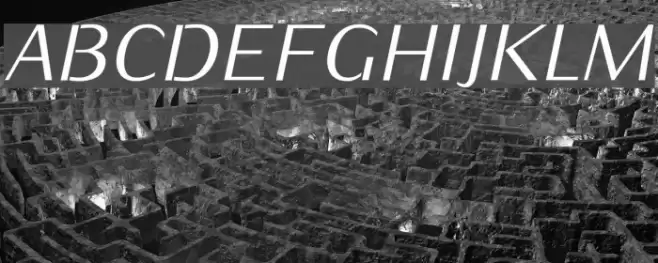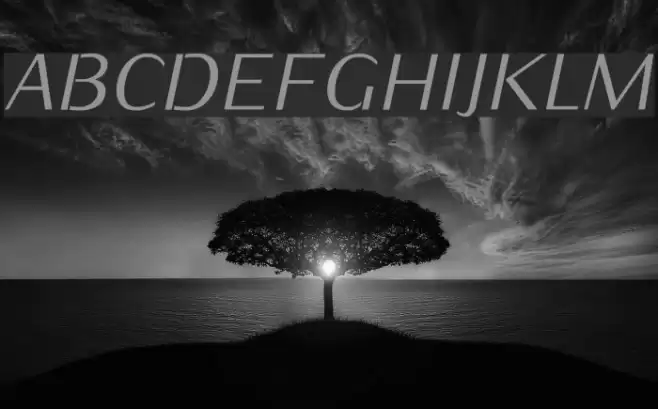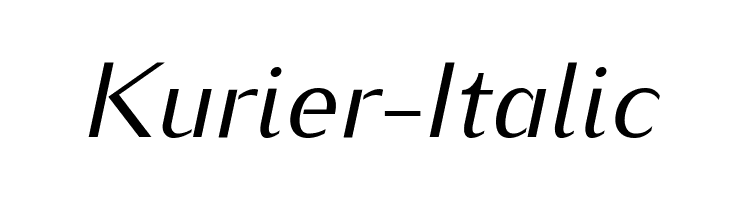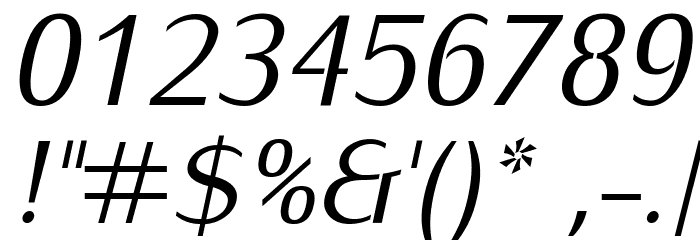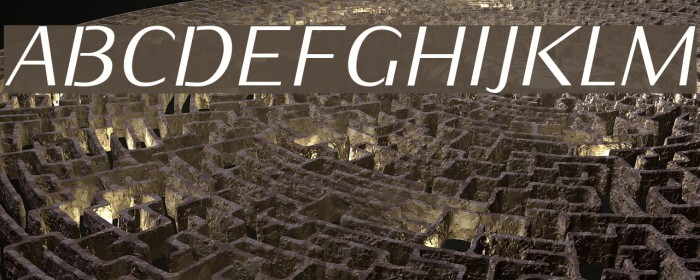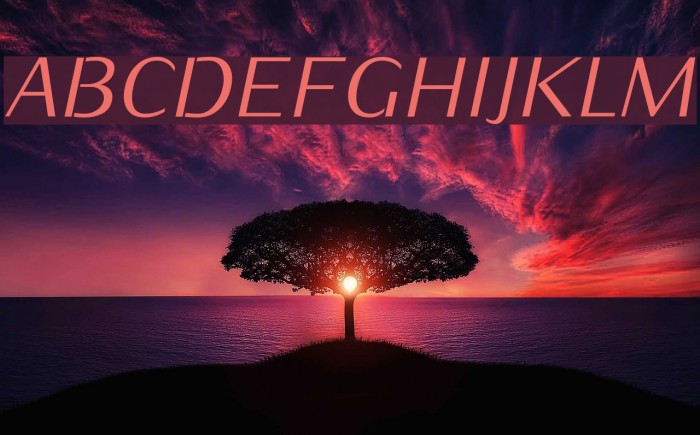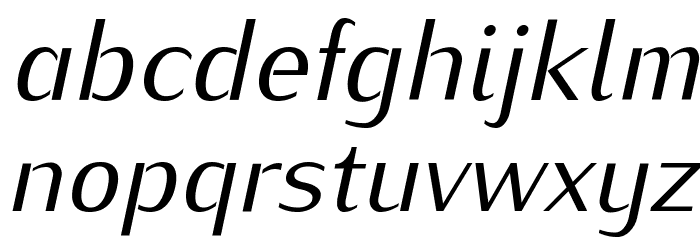
Kurier-Italic Font
Kurier-Italic Description
This font features a sleek, italicized style with a modern and elegant appearance. The letters are slightly slanted, giving a sense of motion and sophistication. The strokes are clean and smooth, with a medium contrast between thick and thin lines. The uppercase letters are tall and commanding, while the lowercase letters maintain a consistent flow. Numbers are clear and distinct, ensuring readability. Special characters are well-integrated, maintaining the overall aesthetic. This font exudes a professional and polished look, suitable for a variety of applications.
A sleek, italicized font with a modern and elegant style from Uncategorized fonts.
- Proposed Projects: Ideal for use in fashion magazines, elegant branding, and sophisticated advertising campaigns.
- Use Case: Headlines, Logos, Editorial design